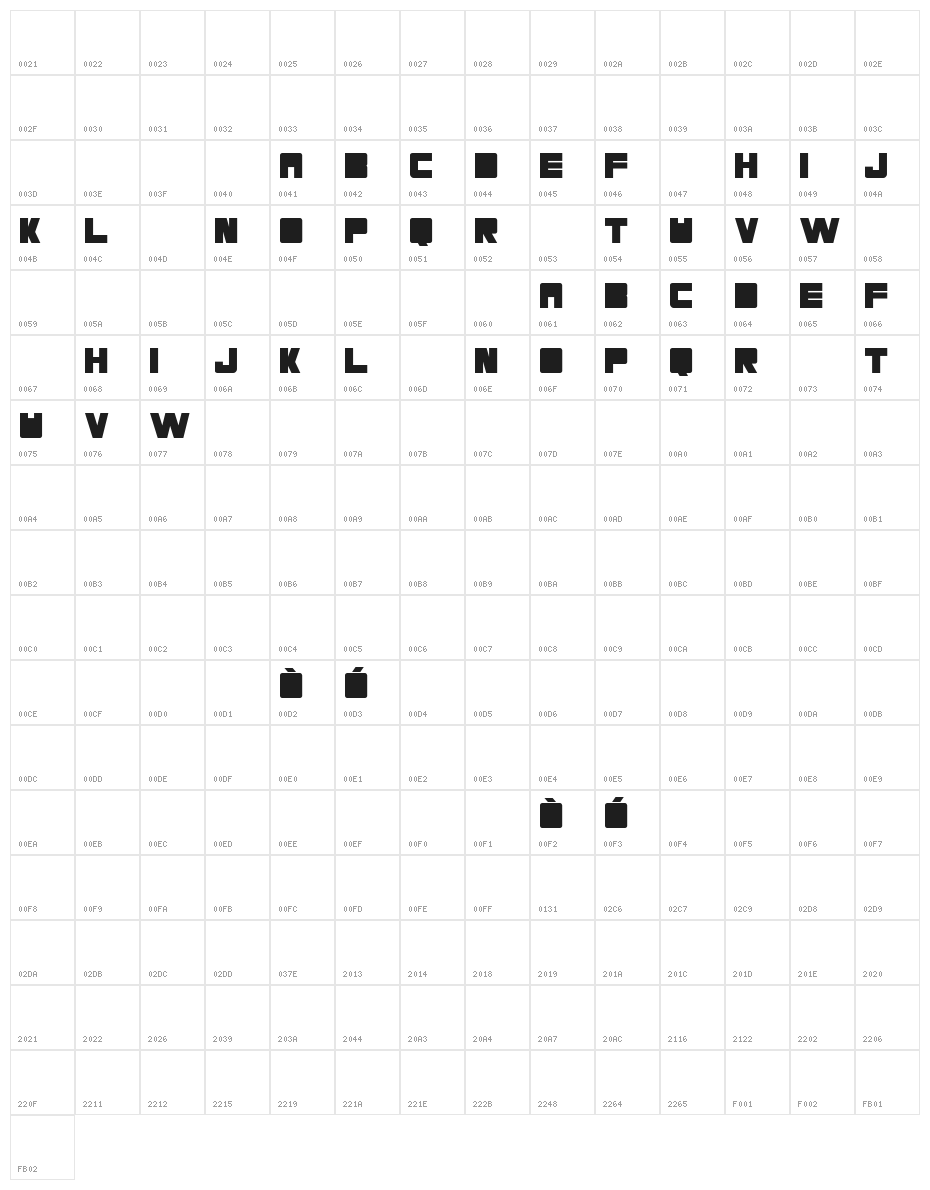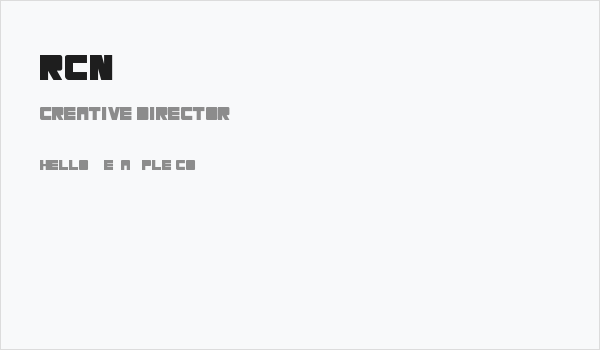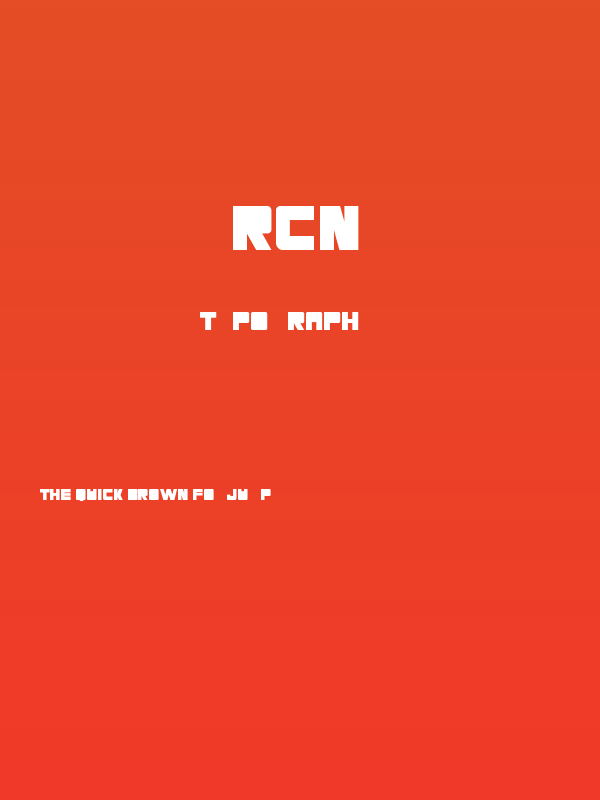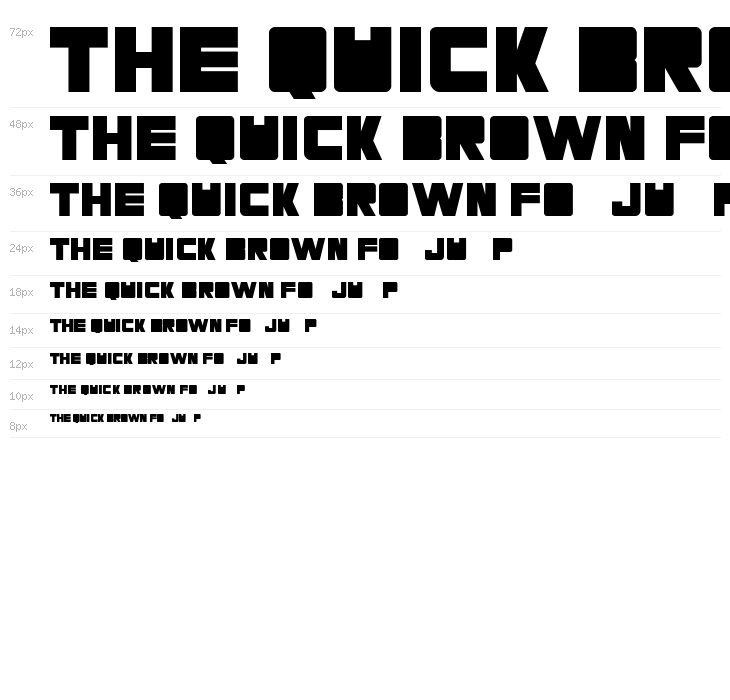
RCN Font
RCN Description
This font features bold, blocky characters with a distinctly modern and geometric style. The letters are uniformly thick, with sharp angles and straight lines, giving them a strong and impactful appearance. The uppercase letters are particularly striking, with a consistent height and width that creates a cohesive look across the alphabet. The font lacks any curves or embellishments, focusing instead on a clean, minimalist aesthetic. This makes it highly legible and suitable for attention-grabbing designs. The overall impression is one of strength and stability, making it ideal for projects that require a bold statement.
| Proposed Projects | Ideal for headlines, posters, logos, and branding materials that require a strong visual impact. |